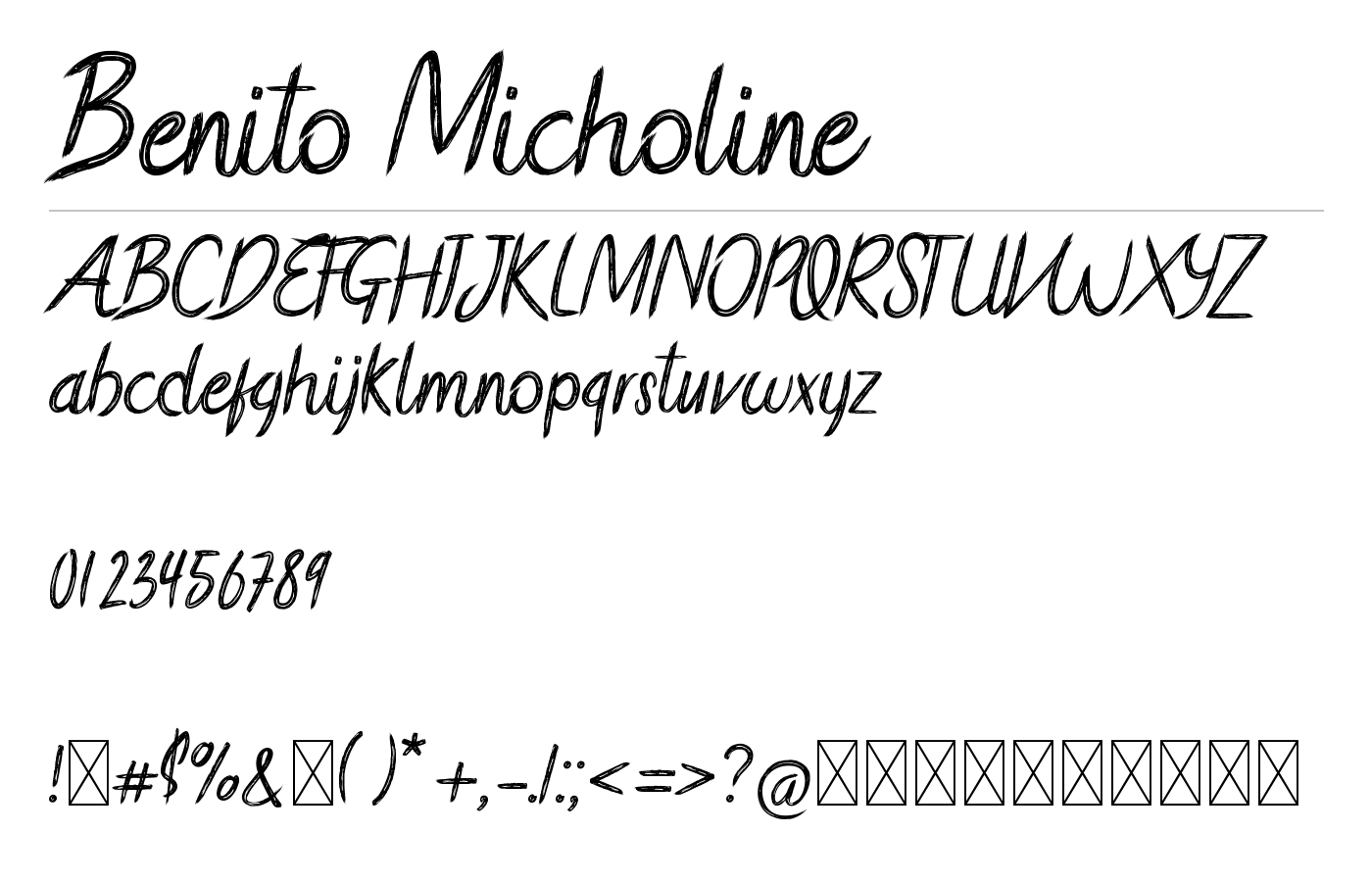
Benito Micholine is a lively, cursive script font with a hand-drawn, textured look that adds a personal and artistic touch to any design. Its slender strokes and natural flow give it an informal, approachable feel, making it ideal for creative projects, invitations, and branding that seeks a warm, handcrafted vibe. This font works best in headlines, logos, and decorative text where a playful yet elegant style is desired.
Benito Micholine Font